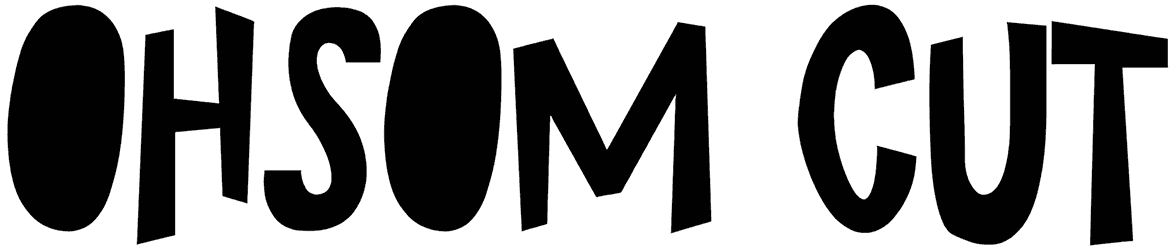
Ohsom Cut Font
If you’re looking to give your work a lighthearted, whimsical vibe, the beautiful cartoon font, Ohsom Cut is a great choice. Despite its lack of lowercase letters, it may portray a more casual atmosphere because of its two sets of uppercase letters.